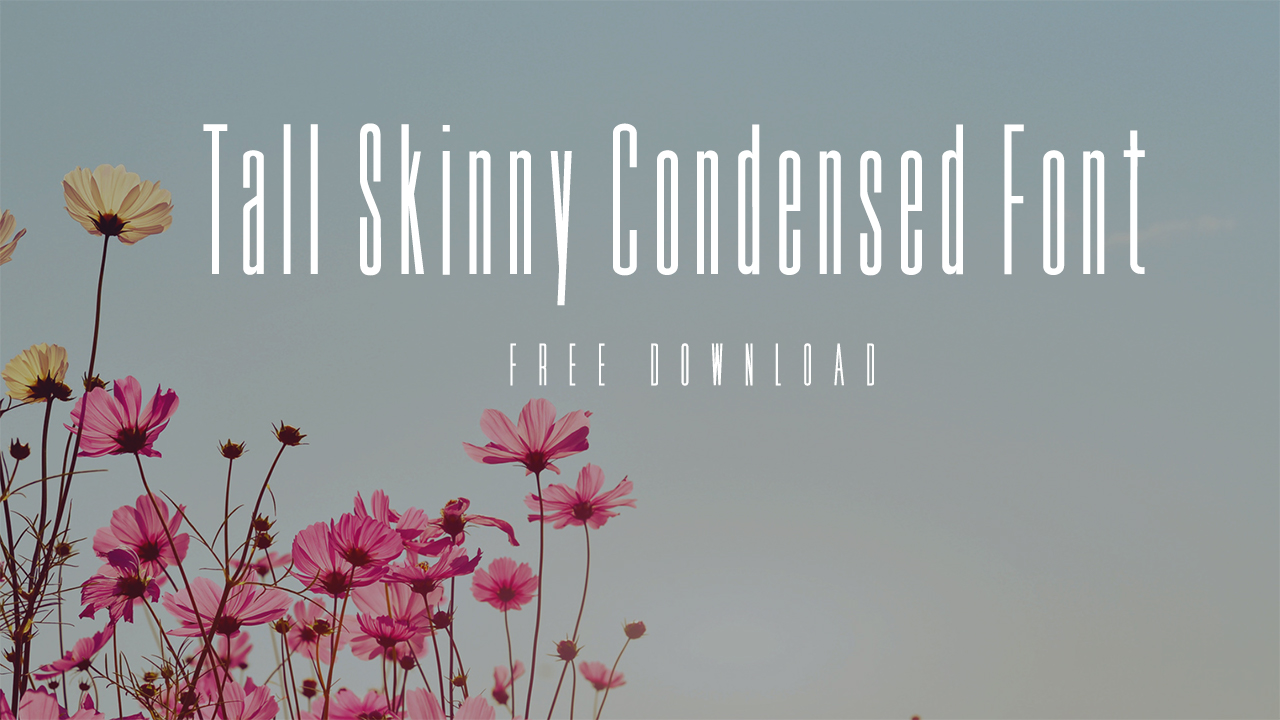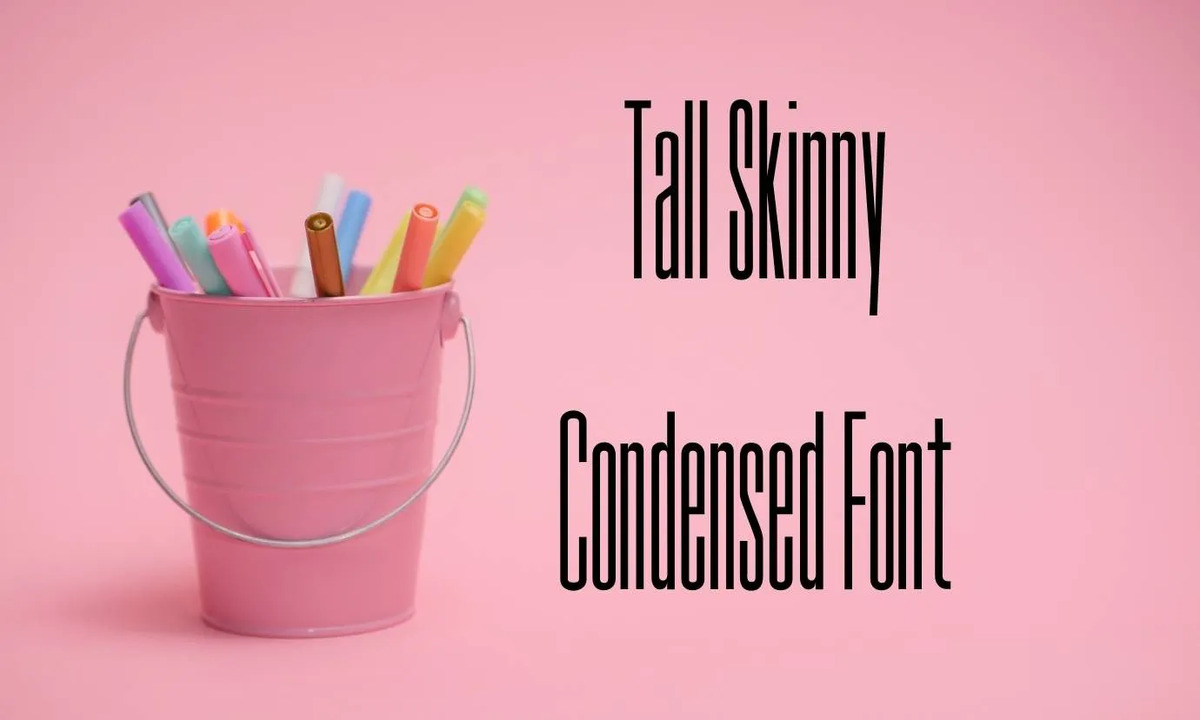
Tall Skinny Condensed Font is a unique, ultra-condensed sans-serif typeface designed by Rae Kaiser. Published outside in the line in 2002, it is now very popular for its tall, narrow letterforms.
This font was created to fit long words into tight spaces while maintaining legibility and style. Whether it’s used for a single word in a narrow column or for several lengthy words in a limited space, Tall Skinny Condensed excels in delivering a clean, impactful design.
Types Of The Tall Skinny Condensed Font
Tall Skinny Condensed Font is a versatile tool in any designer’s arsenal, offering a sleek and stylish solution for both print and digital projects. Its tall, slim design ensures that even in the most constrained spaces, text remains clear and visually appealing.
Tall Skinny Condensed Font Found In Use
People commonly use this font in branding, advertising, and various forms of print media. Its slender, condensed forms make it a go-to choice for situations where space is limited but the need for strong visual impact is high. The font’s elegant simplicity makes it suitable for a wide range of applications, from stylish marketing materials to modern product packaging.
Designers created the Tall Skinny Condensed Font to fit text into narrow spaces without sacrificing readability or style. Its slim, tall letterforms are perfect for modern design contexts, making it an excellent choice for both digital and print media.
Whether you’re creating headlines, logos, or any other type of display text, Tall Skinny Condensed delivers a sleek, contemporary look that is sure to make an impact.
2.What Are The Characteristics Of A Tall Skinny Condensed Font?
Narrow character widths, elongated vertical strokes, and compact spacing.